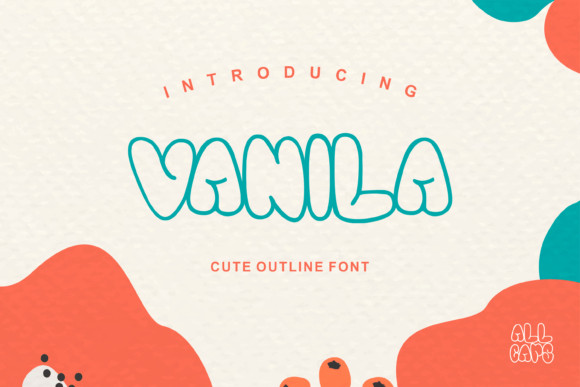
Prepare to be enchanted by Vanila Font, the ultimate display font that sparks joy and creativity. Discover a world of whimsy and delight as you immerse yourself in this captivating collection of characters, each meticulously crafted to ignite your imagination.
With its playful outline and cheerful demeanor, Vanila Font stands out as a true masterpiece, inspired by the vibrant energy of freestyle graffiti. Unleash your inner child and let your creativity soar as you explore endless possibilities with this extraordinary font.
Designed with the magic of children's imaginations in mind, Vanila Font brings a touch of wonder to every project. Its all-caps design, adorned with cute and funny shapes, transforms ordinary words into captivating works of art. Engage young minds and leave a lasting impression with this font that truly captures the essence of childhood.
Vanila Font is the perfect choice for expressing your creativity in a multitude of ways. Craft heartfelt birthday cards that celebrate the joy of growing up. Create enchanting invitations that promise unforgettable kids' parties. Turn ordinary quotes into inspiring messages that resonate with the heart. Elevate your branding with a unique and playful touch. Or simply let your imagination run wild and create stunning works of art that bring a smile to your face.
Dive into the world of Vanila Font and unlock a treasure trove of possibilities. With its versatility and charm, this font will quickly become your go-to choice for adding a touch of whimsy to any project.
Experience the magic of Vanila Font today and let your creativity flourish. Let your imagination take flight and create captivating designs that leave a lasting impression.